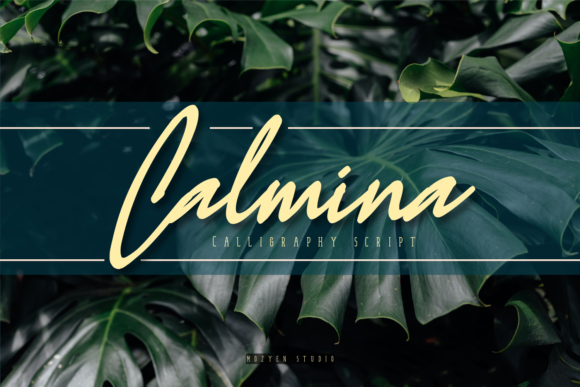
Introducing Calmina, a Script Font Family That Will Charm Your Designs
Calmina, crafted by the talented hands at mozyenstudio, is a font family that exudes a heartfelt charm, ready to infuse your designs with a touch of warmth and personality. This family of fonts belongs to the script genre, characterized by its flowing, cursive style that mimics the natural strokes of a pen. From fashion statements to personal branding, Calmina is the ultimate font choice for creative projects that demand an empathetic and authentic touch.
This remarkable font family is specifically designed to complement fashion-related endeavors, making it an ideal companion for fashion bloggers, designers, and entrepreneurs seeking to create eye-catching visuals. Its handwritten style evokes a sense of authenticity, perfectly capturing the essence of personal style and creative expression. Imagine your fashion designs adorned with Calmina's elegant curves, conveying a sense of sophistication and uniqueness that resonates with your audience.
With Calmina, the Möglichkeiten to express yourself are endless. Its versatility extends beyond fashion, making it equally suited for wedding invitations, greeting cards, social media posts, and branding materials. Its natural and organic aesthetic adds a touch of heartfelt charm to any project, inviting viewers to connect with your brand on a deeper level.
The Calmina font family embraces inclusivity, offering a range of weights and styles to cater to diverse design visions. From the delicate stroke of Calmina Light to the bold presence of Calmina Bold, you'll find the perfect weight to match your creative intent. Mix and match different styles to create visually captivating designs that leave a lasting impression.
With Calmina gracing your designs, you'll unlock a world of creative possibilities. Its user-friendly nature makes it accessible to designers of all skill levels, allowing you to effortlessly transform your ideas into stunning visuals. Dive into the world of Calmina and let your creativity flourish.